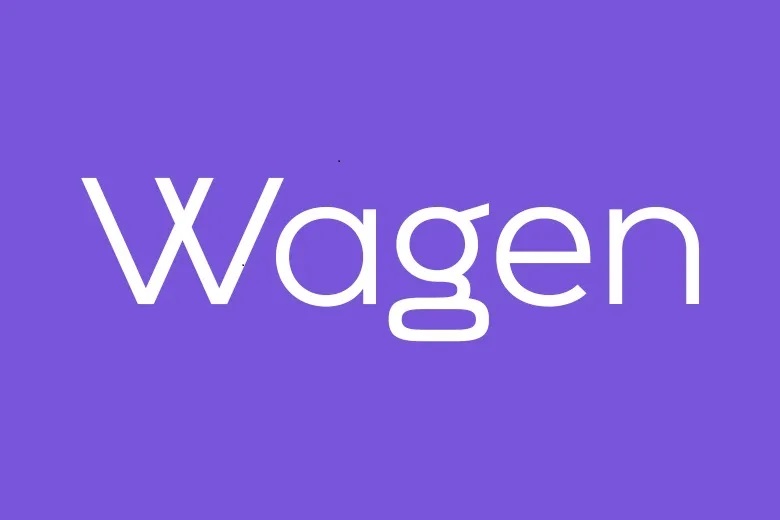
Wagen Sans Font
Wagen Font
Wagen is a new font in sans-serif category which has been designed for branding and corporate identity purposes. It will mesmerize every logo, branding, headline or plain text! This font is ideal for logo designs, graphic prints for home accessories or products, labeling, magazine headlines – or anything that can use an elegant but casual font added on the top of a picture.
Wagen Sans Serif Font